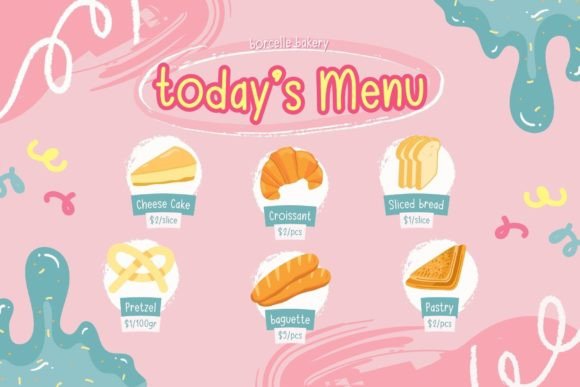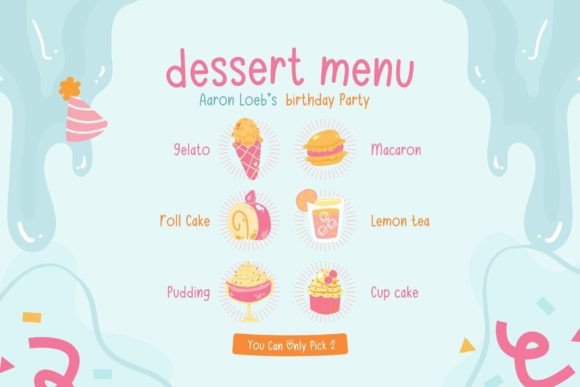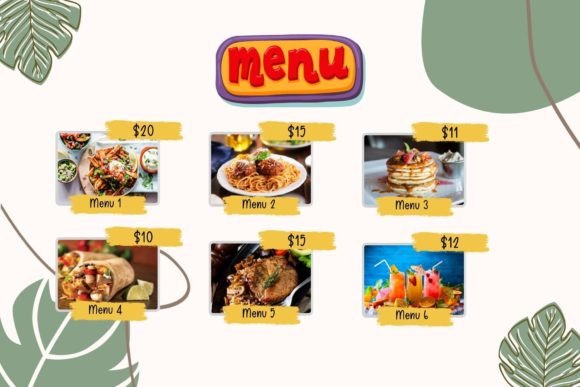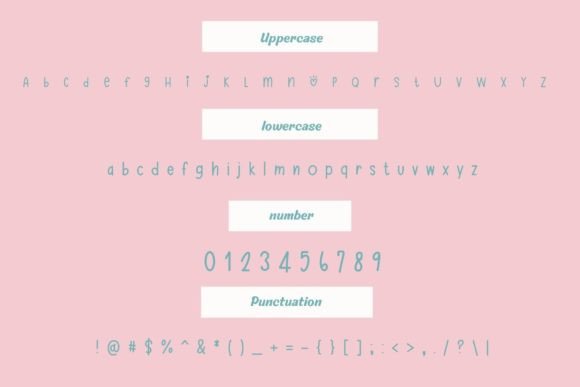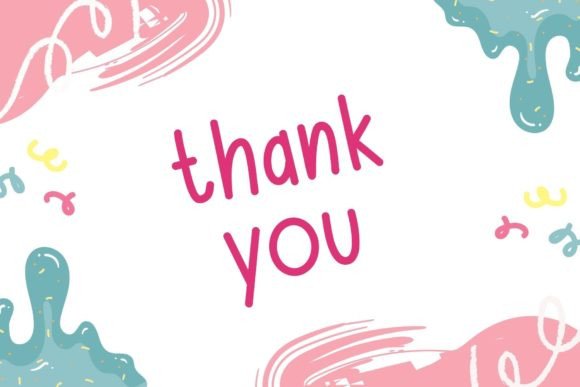
Introduction to Noemi Font
Noemi is a cute handwritten font.
It embodies playfulness and authenticity and is the perfect choice for all your favorite projects such as blog posts, logos, branding, ads, invitations, greeting cards, planners, photo albums, decorations, and much more .